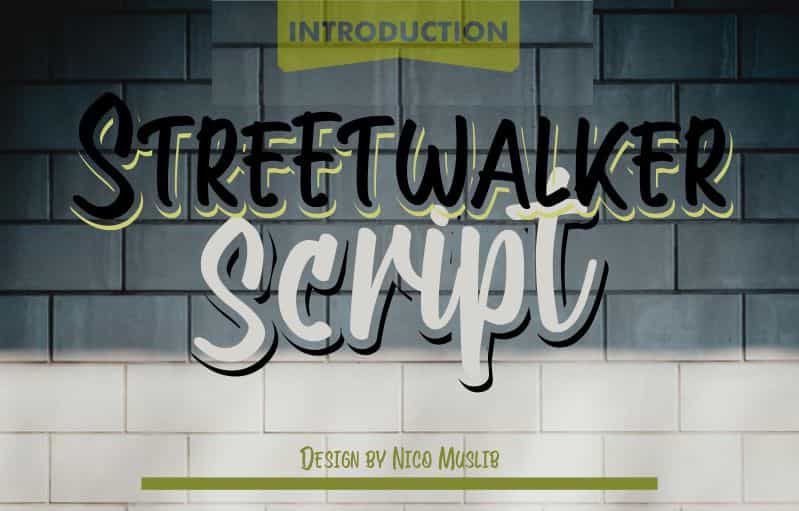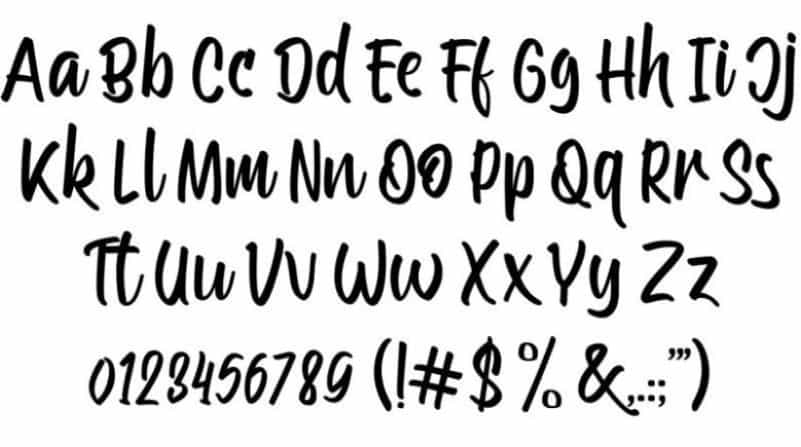
Streetwalker FontStreetwalker is an exquisite handwritten font that has been created by Nico Muslib, and it is free for download and use for personal purposes. The free version supports all the letters of the English alphabet: both uppercase and lowercase and several special signs as well.
Streetwalker is an exquisite handwritten font that has been created by Nico Muslib, and it is free for download and use for personal purposes. The free version supports all the letters of the English alphabet: both uppercase and lowercase and several special signs as well.